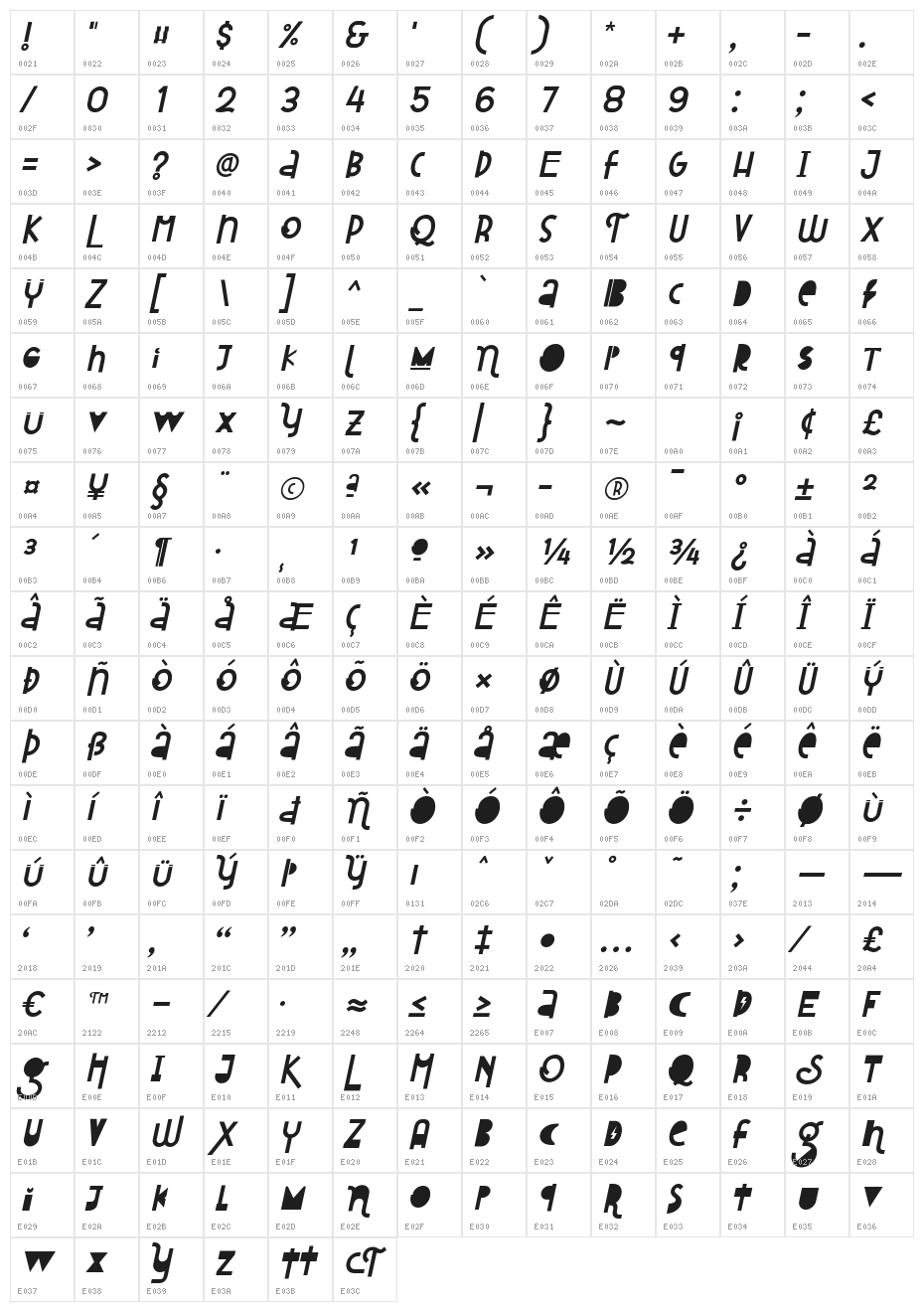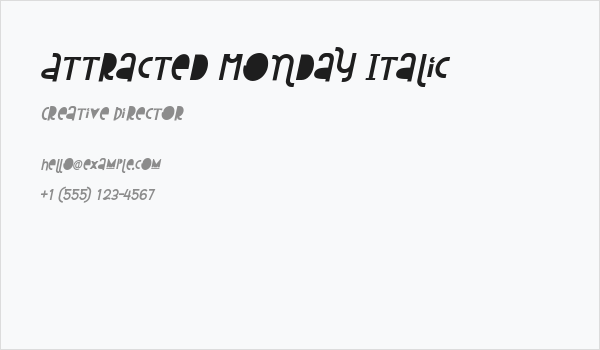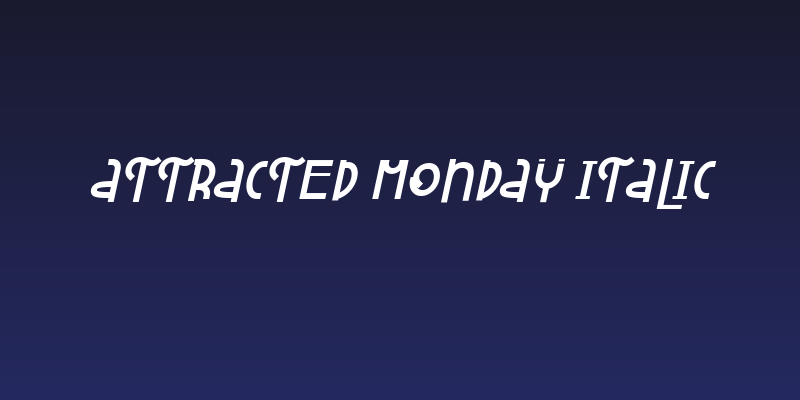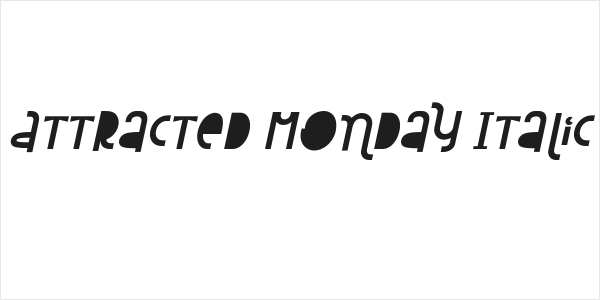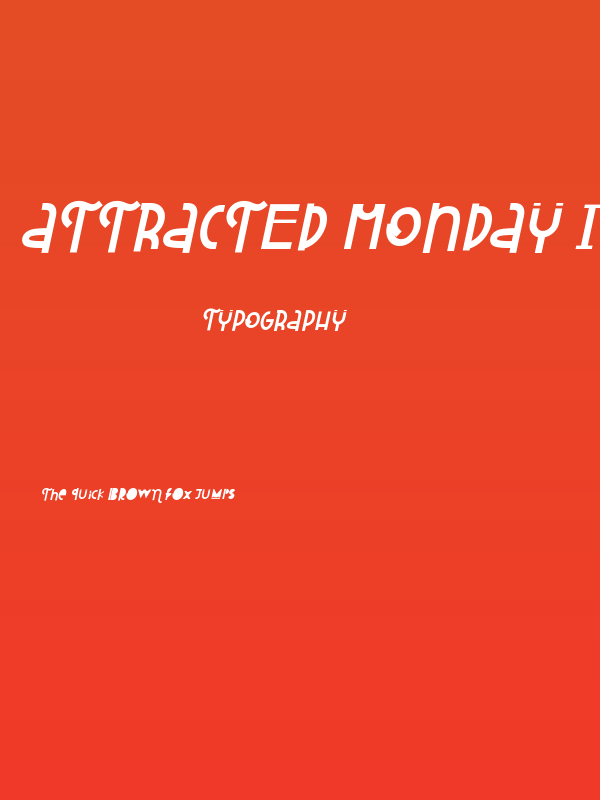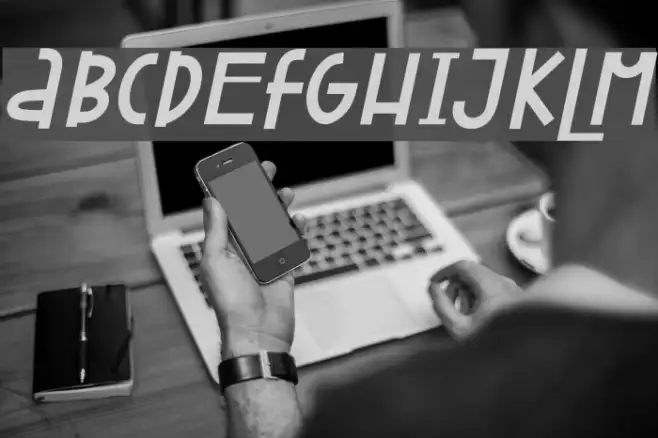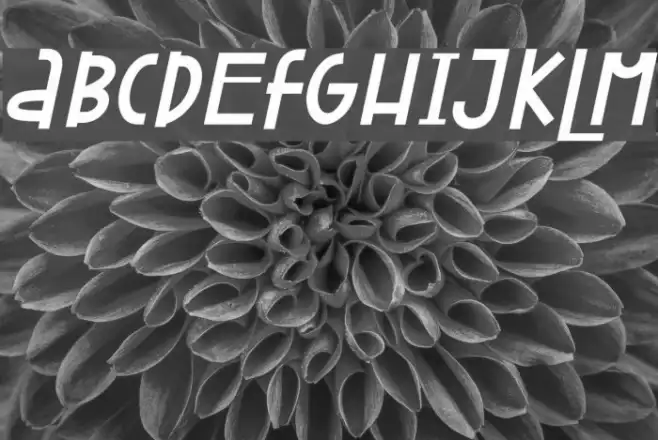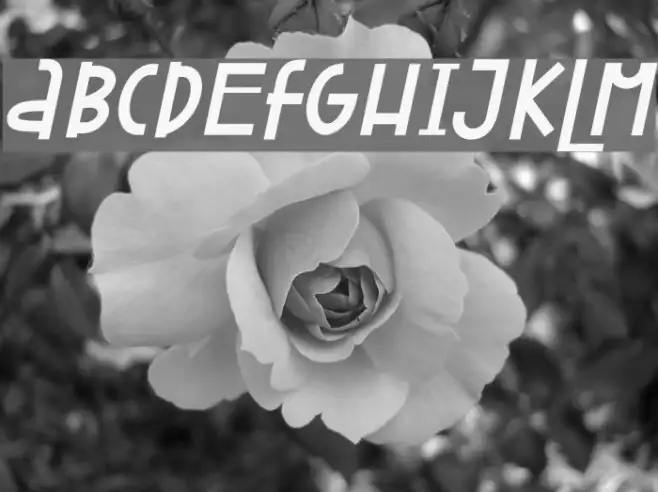
Attracted Monday Italic Font
Attracted Monday Italic Description
This font features a bold and dynamic style with a distinct italic slant, giving it a sense of movement and energy. The characters are crafted with a mix of thick and thin strokes, creating a high contrast that enhances its visual impact. The uppercase letters are particularly striking, with unique shapes and angles that make them stand out. The lowercase letters maintain a cohesive look, complementing the uppercase with their own flair. Numbers and special characters are designed to match the overall aesthetic, ensuring consistency across all elements. This font's playful yet assertive style makes it suitable for a variety of creative projects.
| Proposed Projects | Ideal for branding, posters, headlines, and any project requiring a bold and energetic typeface. |